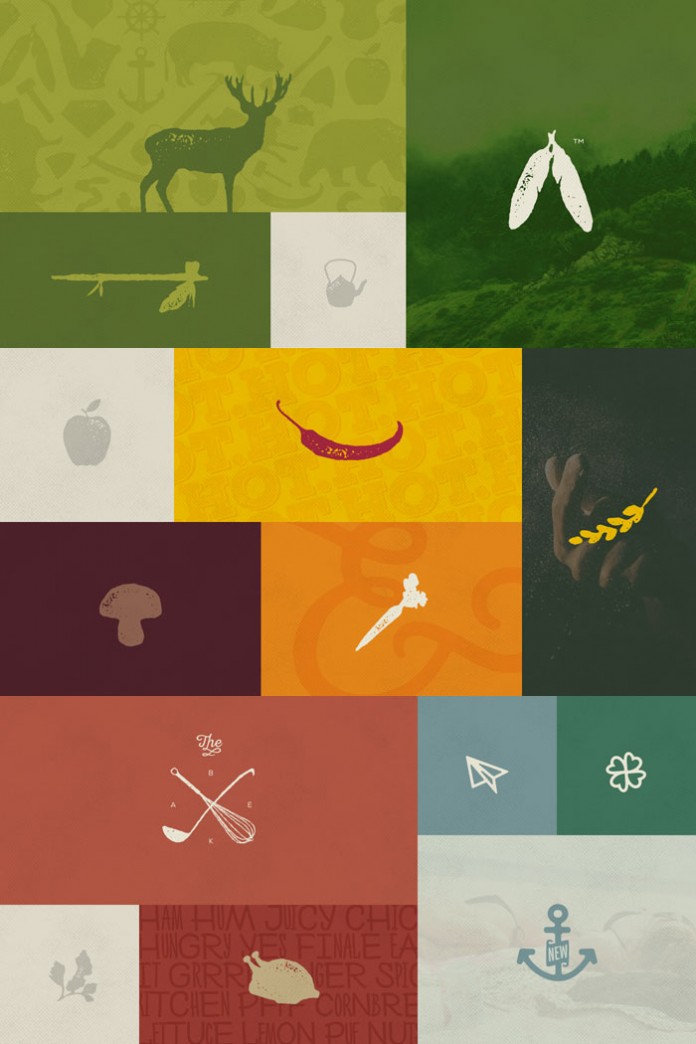
Nexa Rust, a multifaceted font system from Fontfabric.
The type designers Ani Petrova, Svetoslav Simov, and Vasil Stanev of the Fontfabric type foundry have created Nexa Rust, a multifaceted font system. Nexa Rust consists of different sub-families including Sans, Slab, Script, Handmade, and Extras. Each sub-family contains numerous weights. All the styles share a warm and rough look, which works great for display use.
Nexa Rust is a rough vintage version of the popular Nexa and Nexa Slab font families. The multifaceted font system of Nexa Rust adds a nice handmade and vintage inspired touch to these families. The numerous extras include a bunch of icons, catchwords, and different goodies. The complete super pack of 83 fonts is available as both webfont as well as desktop font. This font collection is a great choice for stylish retro posters and any kind of vintage inspired typography and design.